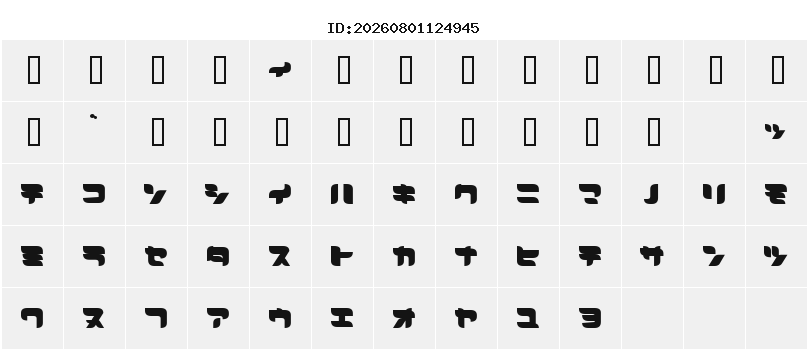
LEMON kANA Preview
• Font Name: LEMON kANA
• Font Style: J
• Font ID: Macromedia Fontographer 4.1.3 LEMON kANA J
• Full Font Name: LEMON kANA J
• Version: Macromedia Fontographer 4.1.3 1998.03.17
• PostScript Name: LEMONkANAJ
• Character Count: 93
About LEMON kANA.ttf
LEMON kANA.ttf is a modern, elegant sans-serif font designed for ultimate readability and visual harmony. Perfect for branding, headlines, web design, and print materials.